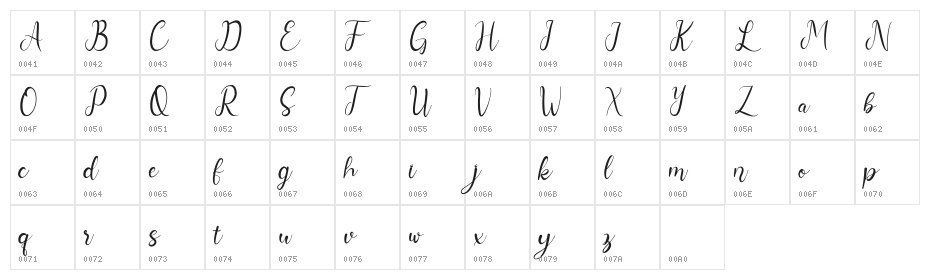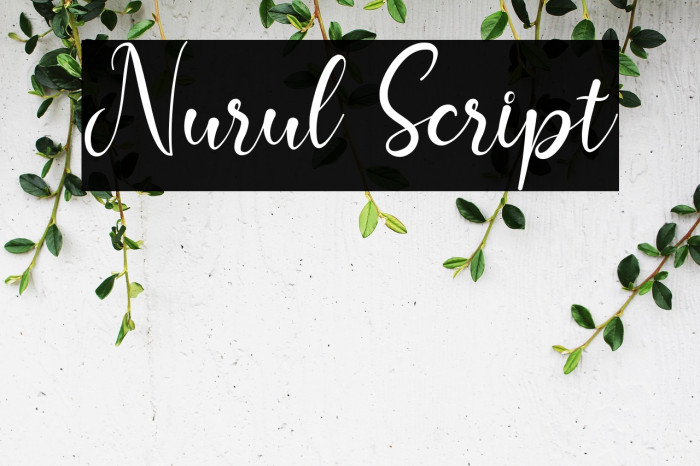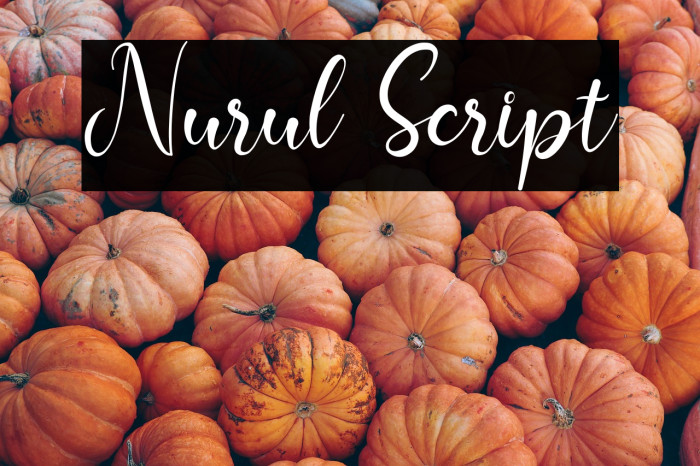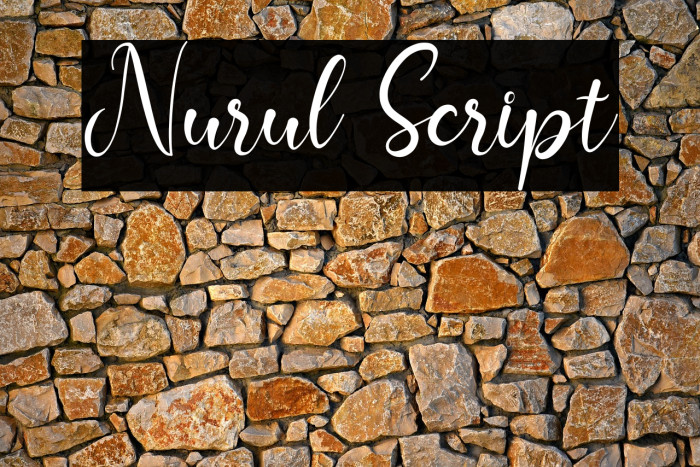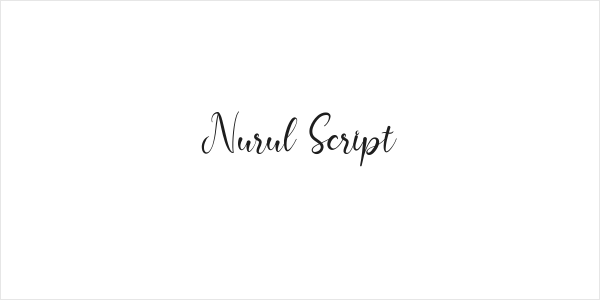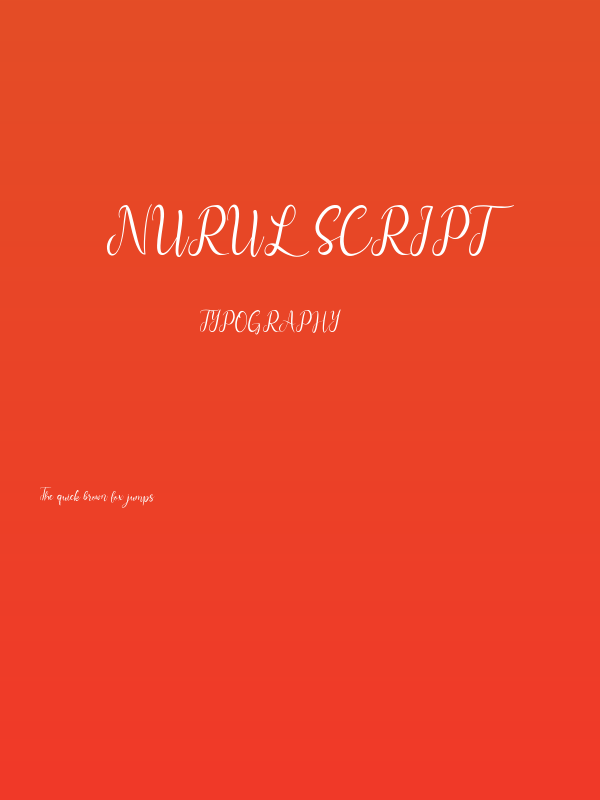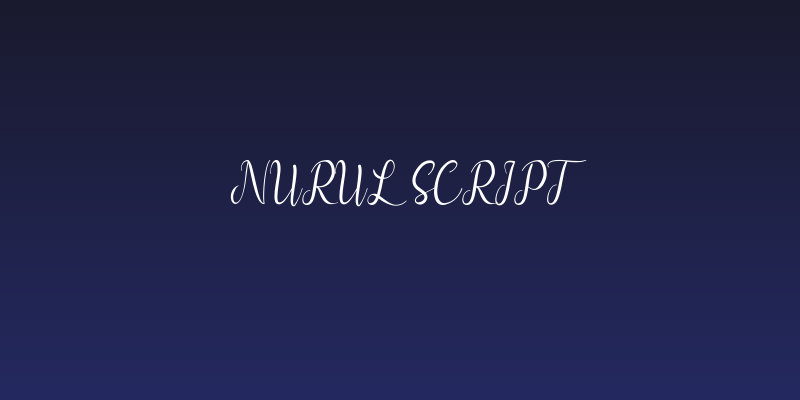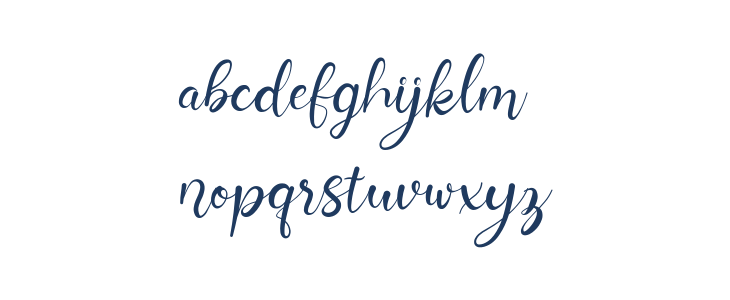
Nurul Script Font
Nurul Script Description
This elegant script font features a flowing, cursive style with graceful loops and swashes. The uppercase letters are characterized by their tall, slender forms and decorative flourishes, while the lowercase letters maintain a consistent, smooth flow. The font exudes a sense of sophistication and charm, making it ideal for formal invitations, branding, and decorative purposes. The strokes vary in thickness, adding a dynamic and lively feel to the text. Its overall appearance is both classic and modern, appealing to a wide range of design aesthetics.
| Overall Style | Elegant, Classic |
| Use Case | Headlines, Invitations, Branding |
| Proposed Projects | Ideal for wedding invitations, elegant branding, greeting cards, and decorative signage. |